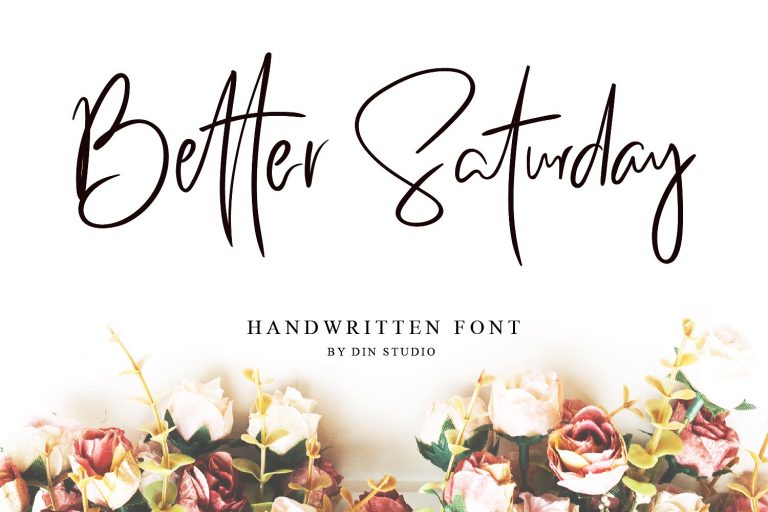
Better Saturday Script Font
I am happy to present you a modern handwritten font. If you are looking for a handwritten style suited to your design then it’s here! Introducing Better Saturday Font. Better Saturday – Classy Handwritten made with naturally handwritten.it’s bring classy and chic typeface. Better Saturday font best use for wedding, branding, logotype and quotes.